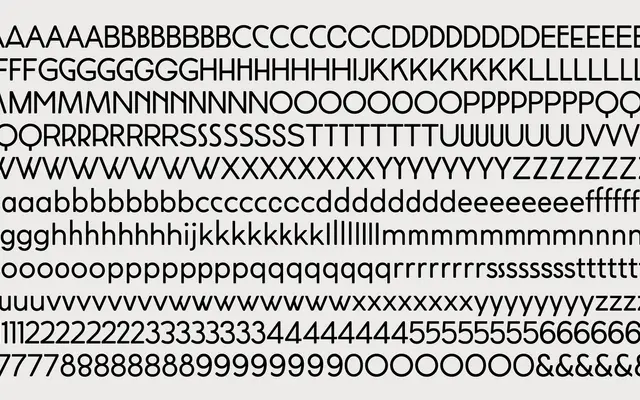
Coco Tardis
Zetafonts · Cosimo Lorenzo Pancini, Mario De Libero · 2021
A variable sans-serif that morphs its letterforms across a timeline from 1870 to 2022, encoding typographic period styles into a single font slider.
Built as an extension of Coco Gothic Pro, Coco Tardis uses a variable font axis labelled 'VNTG' to shift the letterforms through period-appropriate alternates decade by decade. The family ships in 27 static styles across nine eras and three weights, plus a variable file that lets the user scrub through the full timeline. Coverage runs to 213 languages across Latin script with 814 glyphs per style.
Coco Tardis derives from Coco Gothic, a geometric sans-serif, and varies its letterforms across historical eras using a variable font axis, maintaining the geometric sans structure throughout.